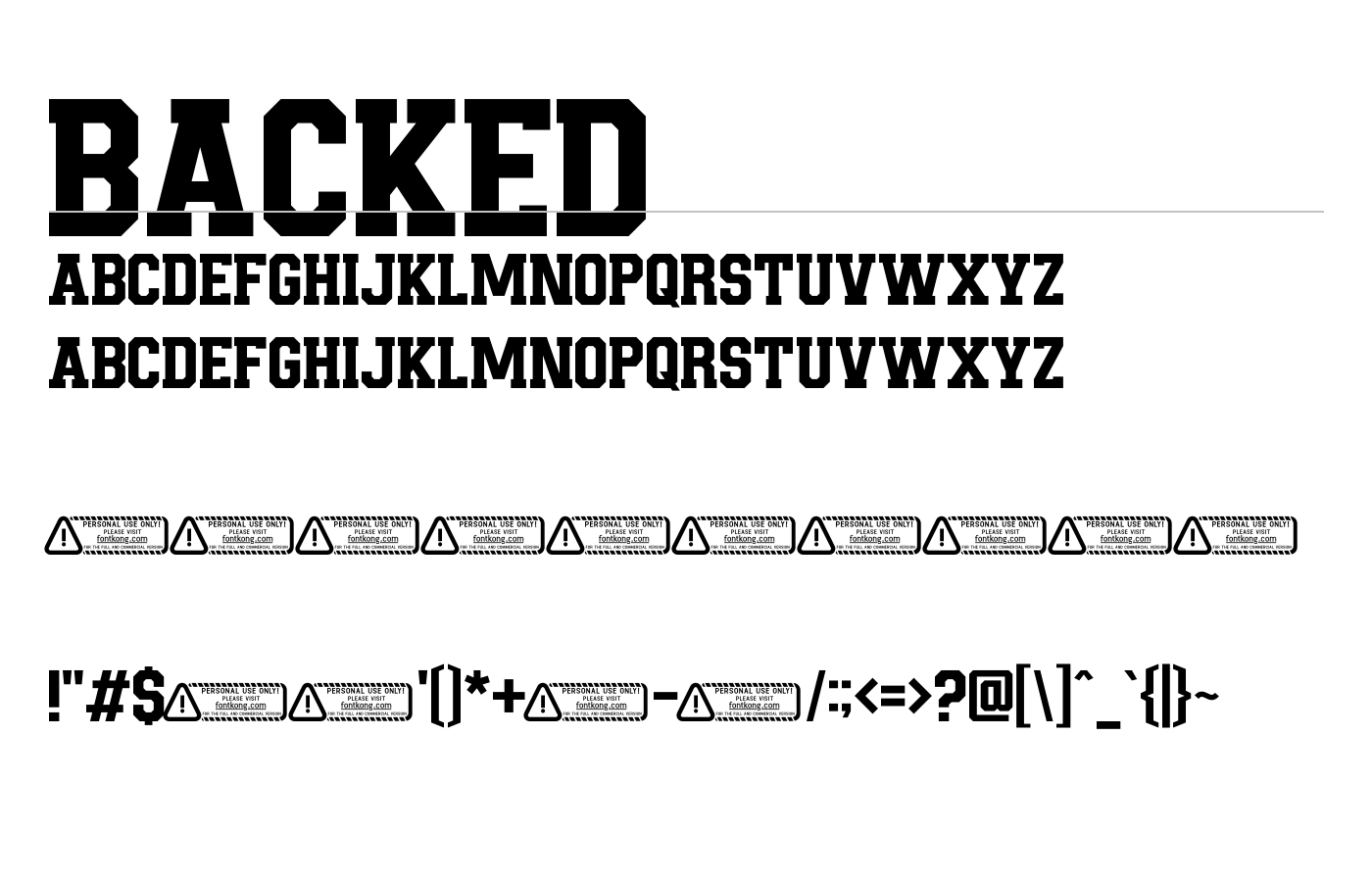
Backed Font is a bold, condensed slab serif typeface with a strong, solid presence perfect for making a statement. Its blocky, geometric letterforms feature sharp edges and thick, bracketed serifs that give it a rugged, industrial feel, making it ideal for headlines, posters, and branding that demands attention and conveys strength and reliability. This font works well in sports, outdoor, or vintage-inspired designs where a bold, impactful look is essential.
Backed Font
About Backed Font